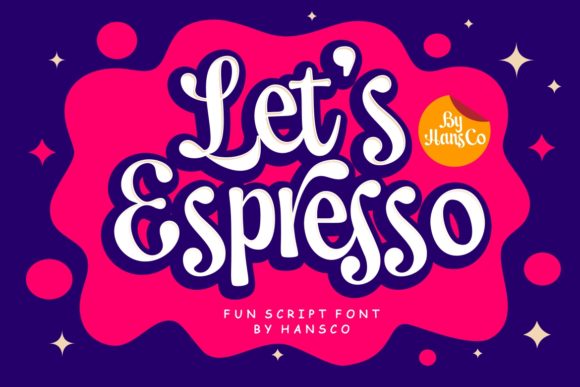
Behold, the Let's Espresso font - a visual masterpiece crafted with passion to transform your designs into captivating expressions of art and elegance. Designed by the creative genius of HansCo, this script font is more than just a collection of letters; it's an ode to beauty, an invitation to let your creativity flow unbounded.
Immerse yourself in the charm of Let's Espresso, a font that captures the essence of handwritten grace with its fluid strokes and playful curves. Each letter dances across the page, connecting with the next in an enchanting rhythm that mimics the natural flow of your thoughts. Its delicate lines and subtle variations evoke a sense of intimacy and warmth, drawing your audience into the world you create.
Imagine your wedding invitations adorned with the elegance of Let's Espresso, the curves of each letter mirroring the joy and love of your special day. Picture birthday cards that burst with cheer and celebration, their messages penned in the lively strokes of this font. Let's Espresso brings life to your most creative endeavors, whether you're crafting social media posts, designing logos, or creating unique merchandise.
Let's Espresso is not just another font; it's a gateway to a world of artistic possibilities. Its versatility knows no bounds, adapting seamlessly to a myriad of design styles and themes. From whimsical invitations to chic branding, Let's Espresso effortlessly elevates your creations, adding a touch of sophistication and individuality that sets them apart.
With Let's Espresso, you're not just downloading a font; you're embracing an artistic journey where your imagination takes center stage. So, dive into the world of Let's Espresso and let your creativity flourish. Experience the joy of transforming ordinary words into captivating visual expressions. Let your designs dance with grace and elegance, leaving an unforgettable impression on all who encounter them.